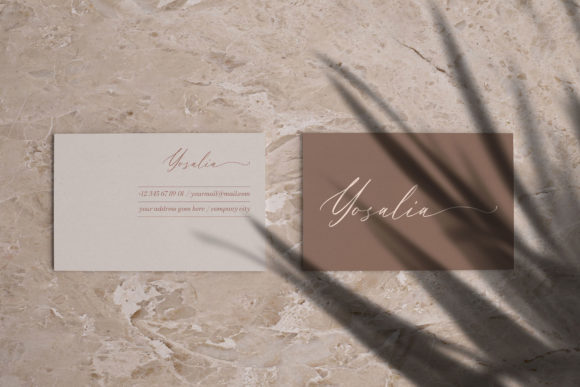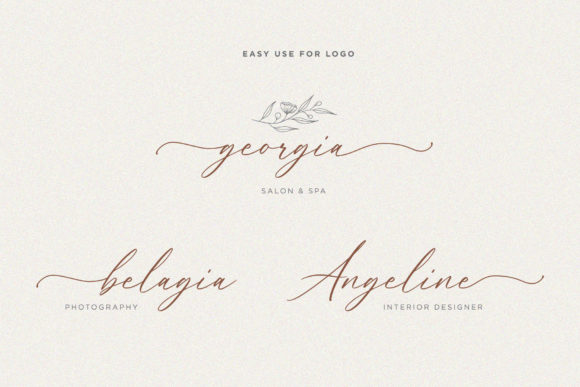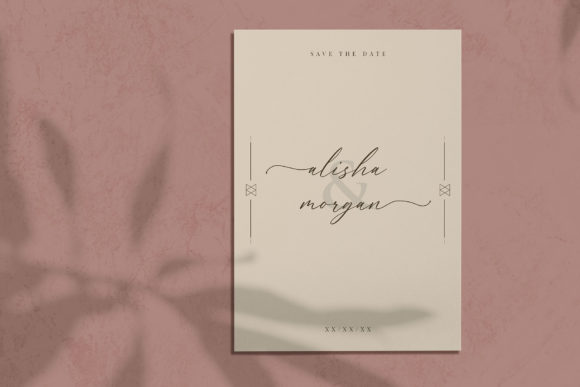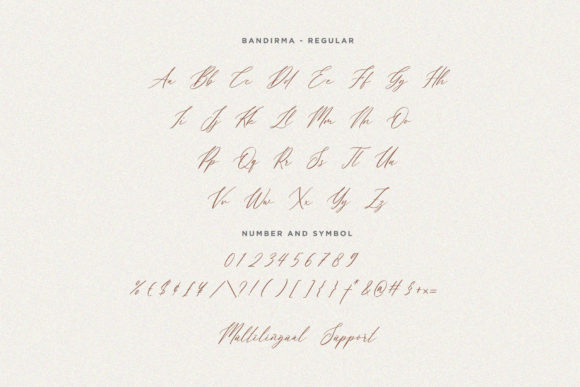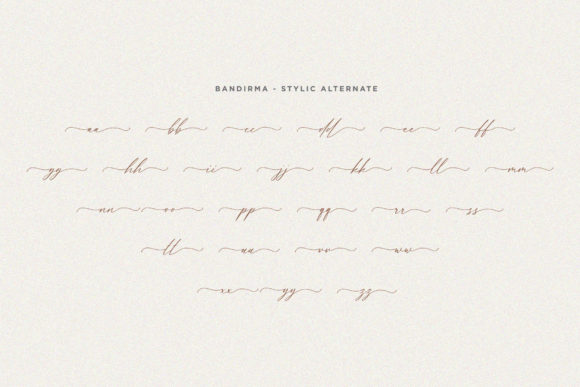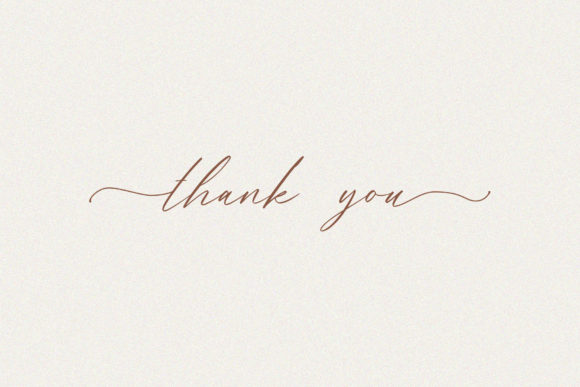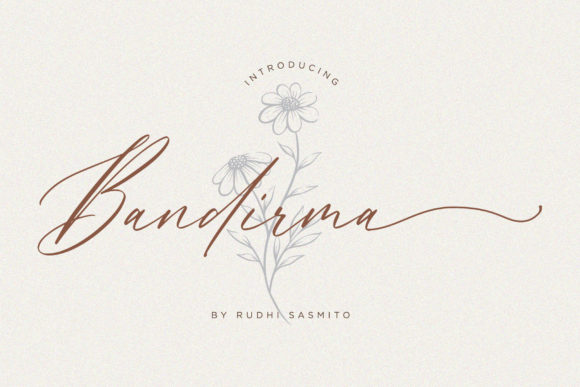
Introducing Bandirma Font: Elevate Your Designs with Elegance and Sophistication
In the world of typography, a font can make or break the aesthetic of a design. For those seeking a touch of elegance and sophistication, Bandirma Font is an exceptional choice. This stylish and incredibly delicate script font is perfect for adding a handwritten touch to various designs, from wedding invitations to business cards.
The Beauty of Bandirma Font
Bandirma Font boasts a unique, cursive script style that exudes refinement and luxury. Its delicate strokes and elegant letterforms make it an ideal choice for designs that require a personal and sophisticated touch. The font’s intricate details and flowing connections between letters create a beautiful, hand-written look that is sure to captivate your audience.
Whether you’re a designer, crafter, or DIY enthusiast, Bandirma Font is a versatile choice that can elevate a wide range of design projects. Here are some ideas to get you started:
- Wedding Invitations: Add a touch of romance and sophistication to your wedding invitations, save-the-date cards, and other wedding-related designs.
- Thank You Cards: Express your gratitude with beautifully designed thank you cards that feature the elegant Bandirma Font.
- Quotes and Posters: Create stunning quote posters, social media graphics, and inspirational prints that showcase the font’s delicate beauty.
- Greeting Cards: Design personalized greeting cards for special occasions, such as birthdays, anniversaries, and holidays.
- Logos and Branding: Use Bandirma Font to create a unique and memorable logo for your business or brand.
- Business Cards: Stand out from the crowd with professionally designed business cards that feature the elegant Bandirma Font.
Why Choose Bandirma Font?
With so many fonts available, why choose Bandirma Font for your design projects? Here are a few compelling reasons:
- Unique and Elegant: Bandirma Font offers a distinctive, cursive script style that sets it apart from other fonts.
- Versatile: The font is suitable for a wide range of design projects, from wedding invitations to business cards.
- Easy to Read: Despite its delicate nature, Bandirma Font is easy to read, making it perfect for body text and captions.
- High-Quality: The font is crafted with attention to detail, ensuring a high-quality output that will impress your audience.
Tips for Using Bandirma Font
To get the most out of Bandirma Font, here are some tips to keep in mind:
- Pair with Contrasting Fonts: Combine Bandirma Font with contrasting fonts to create visual interest and hierarchy in your design.
- Use for Headings and Titles: Take advantage of the font’s elegance by using it for headings, titles, and other display text.
- Experiment with Colors: Try out different color schemes to find the perfect match for your design and the Bandirma Font.
Bandirma Font is a stunning, delicate script font that can elevate your designs with its elegance and sophistication. Whether you’re a designer, crafter, or DIY enthusiast, this versatile font is perfect for a wide range of projects, from wedding invitations to business cards. With its unique and elegant style, Bandirma Font is sure to captivate your audience and leave a lasting impression.
So why wait? Discover the beauty of Bandirma Font and take your designs to the next level with its refined, cursive script style.